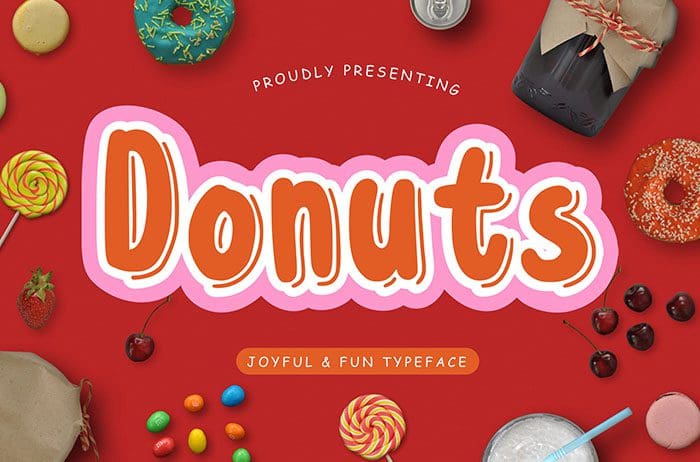
Donuts is a fun and joyful Display Font which suitable to use for children related occasion. Donuts is perfect for logo, advertisements, label, and many more. Thanks to Creatype Studio for sharing this font! Take a look at this portfolio for more of his stunning fonts.